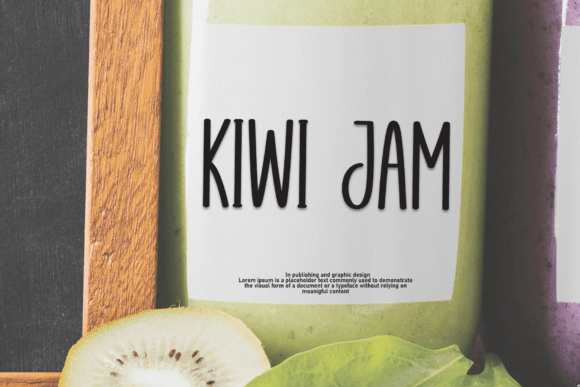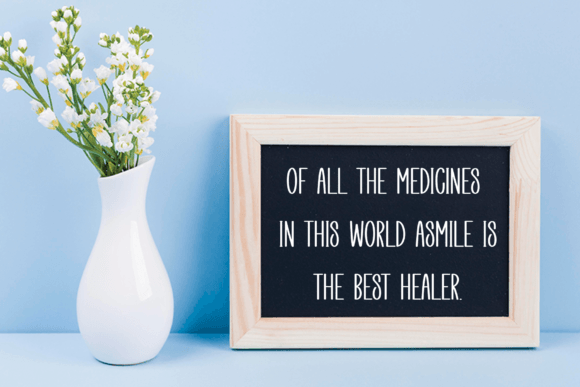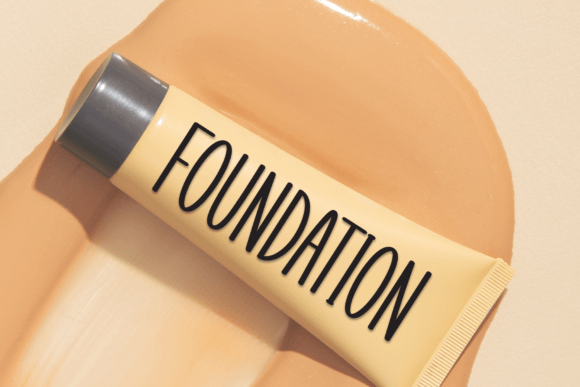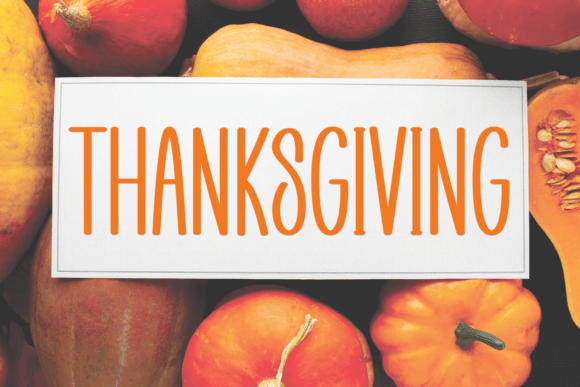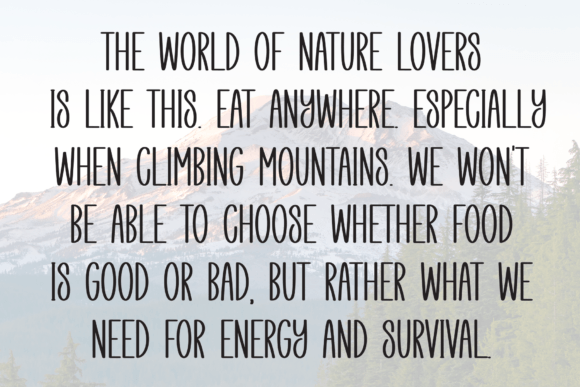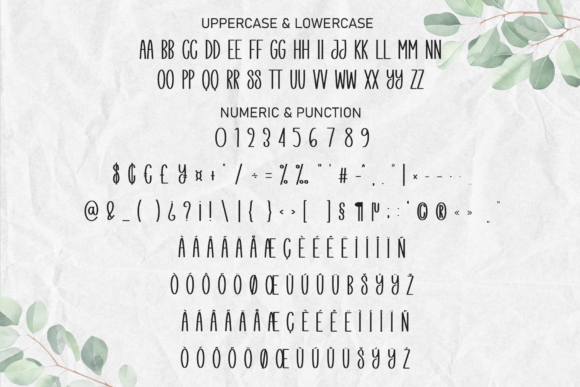
Introduction to Paper Design Font
Have you ever stared at a blank canvas, eager to bring a creative project to life, only to find yourself stuck on the perfect font? We’ve all been there. The search for the perfect typography can be daunting, but what if I told you there’s a game-changing font that can elevate your design to the next level?
Meet the Paper Design Font, a sleek and modern font that’s sure to make your designs stand out. With its tall, eye-catching letters and slender lines, this font is perfect for creating bold headlines or unique titles that demand attention. Whether you’re working on a high-quality design project or simply looking for a stylish addition to your design resource library, the Paper Design Font is a valuable asset that’s sure to impress.
Key Features of Paper Design Font
- High-quality design resource with a unique, hand-drawn aesthetic, perfect for creative projects.
- Unique characteristics include subtle texture and imperfections, adding a touch of organic feel to designs.
Honest Review: Paper Design Font
As a designer, I’m always on the lookout for high-quality design resources that can elevate my creative projects. The Paper Design Font is one such resource that caught my attention.
Here’s what works well: ✨ The font is incredibly versatile and can be used for a wide range of design projects, from invitations to brochures. It’s also a free download, making it an excellent addition to any designer’s toolkit.
The font features a transparent background, allowing it to seamlessly blend with any design element. The high quality of the font is evident in its crisp lines and smooth texture.
Some limitations include: ⚠️ The font is a bit limited in its character set, which may not be ideal for projects that require a wide range of characters. Additionally, the font may not be suitable for very small text sizes.
Overall, the Paper Design Font is a solid addition to any designer’s collection. While it has some limitations, its high quality and versatility make it a valuable resource for any creative project.
- Versatile for various design projects
Paper Design Font
Experiment with different font sizes and styles to add depth to your creative project.
Combine the Paper Design Font with other design resources for a unique look.
The Paper Design Font is ideal for a variety of creative projects, including:
Blog posts and articles
Social media graphics
Infographics